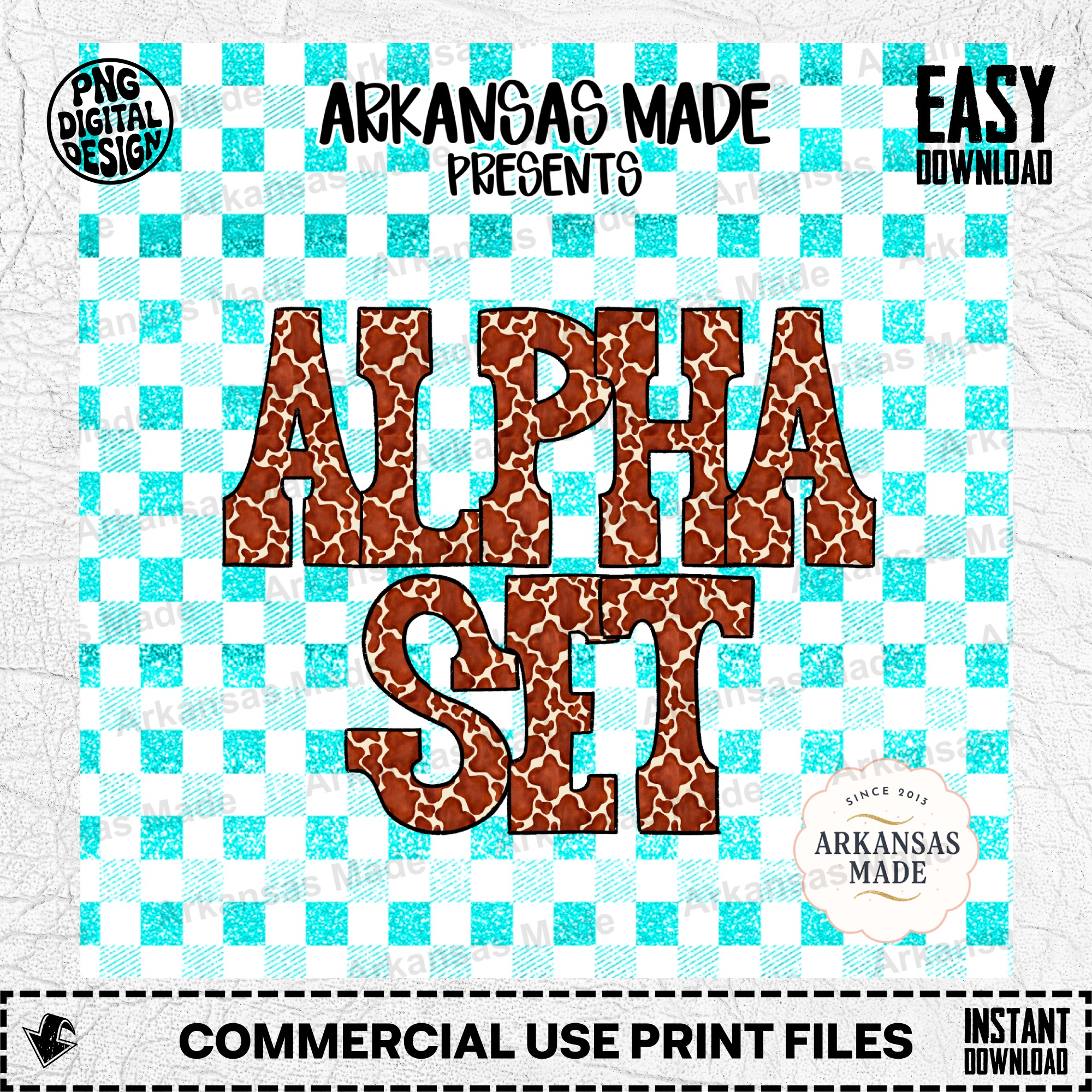
Cow Print Alphabet PNGs, Western Letter Digital Download, Safari Alpha Set, Brown Spotted Letters for Sublimation, Animal Print Font Clipart
Unleash your creativity with our unique Cow Print Alphabet PNGs! Perfect for sublimation projects and personalized designs, this digital download set brings a trendy western vibe. Featuring a charming brown and white spotted cowhide effect, these versatile letters are ideal for crafters, DIY enthusiasts, and small business owners. Create stunning t-shirt graphics, tumbler wraps, or custom monograms with ease. A thoughtful gift for any designer or anyone who loves country-style aesthetics and personalized items.